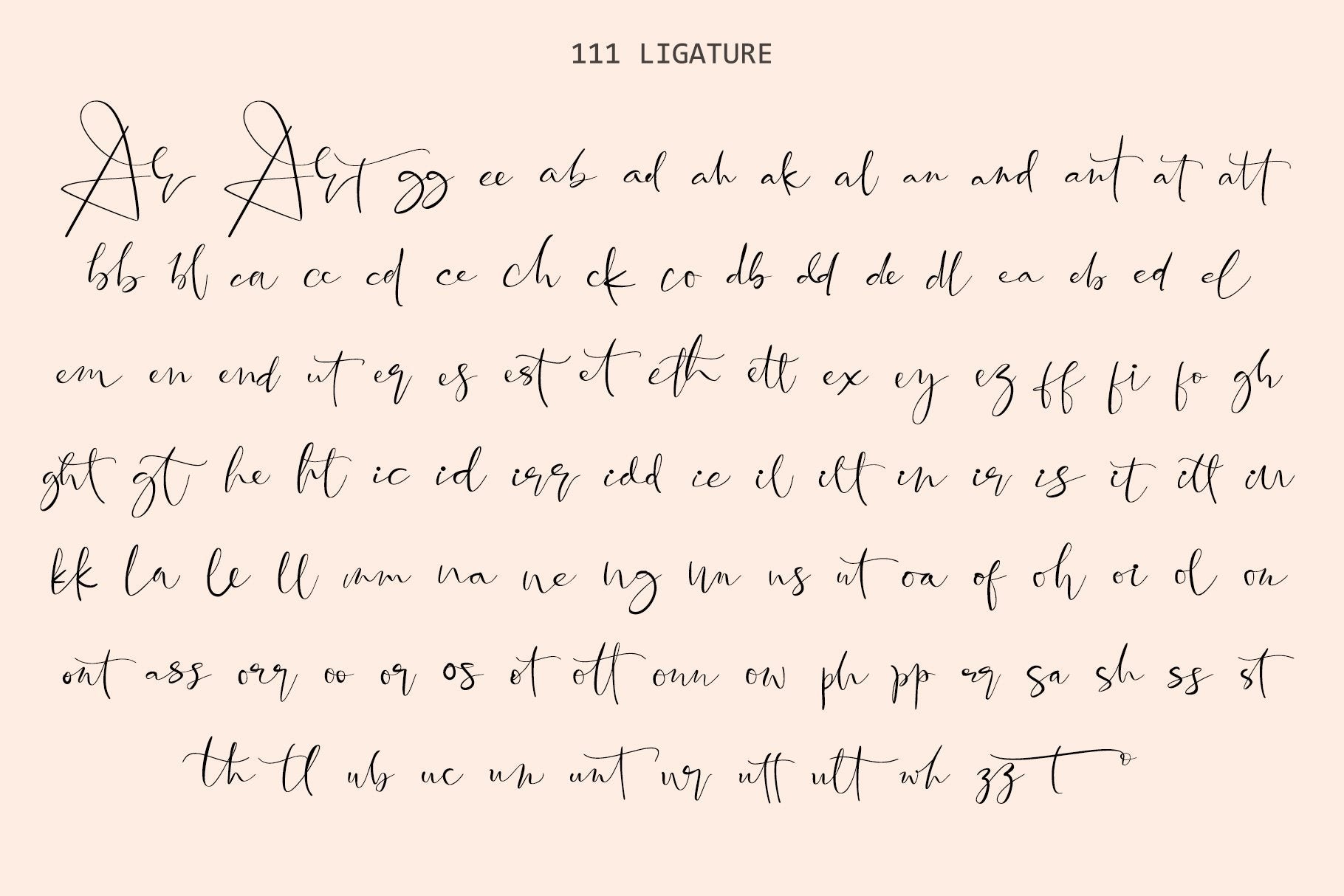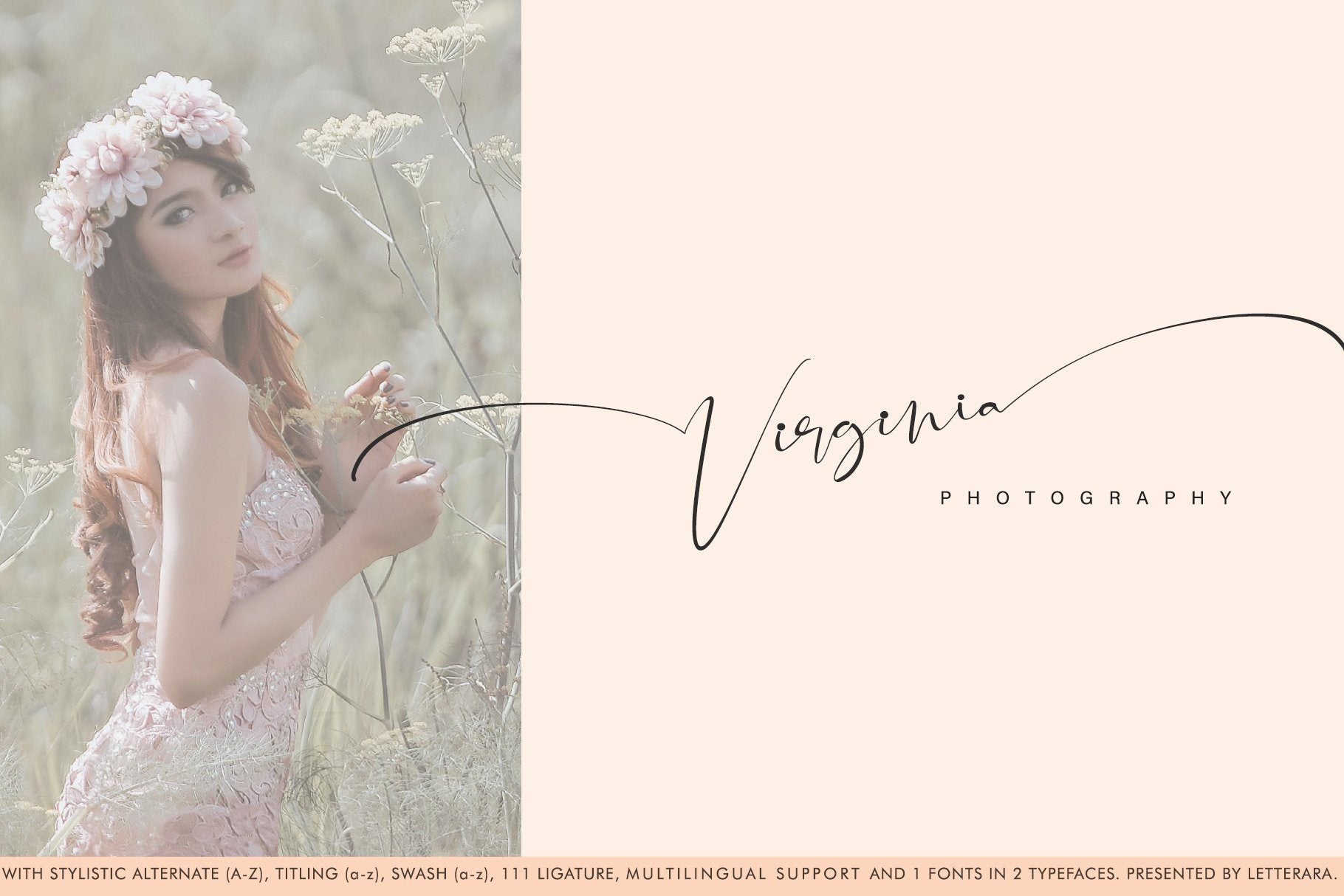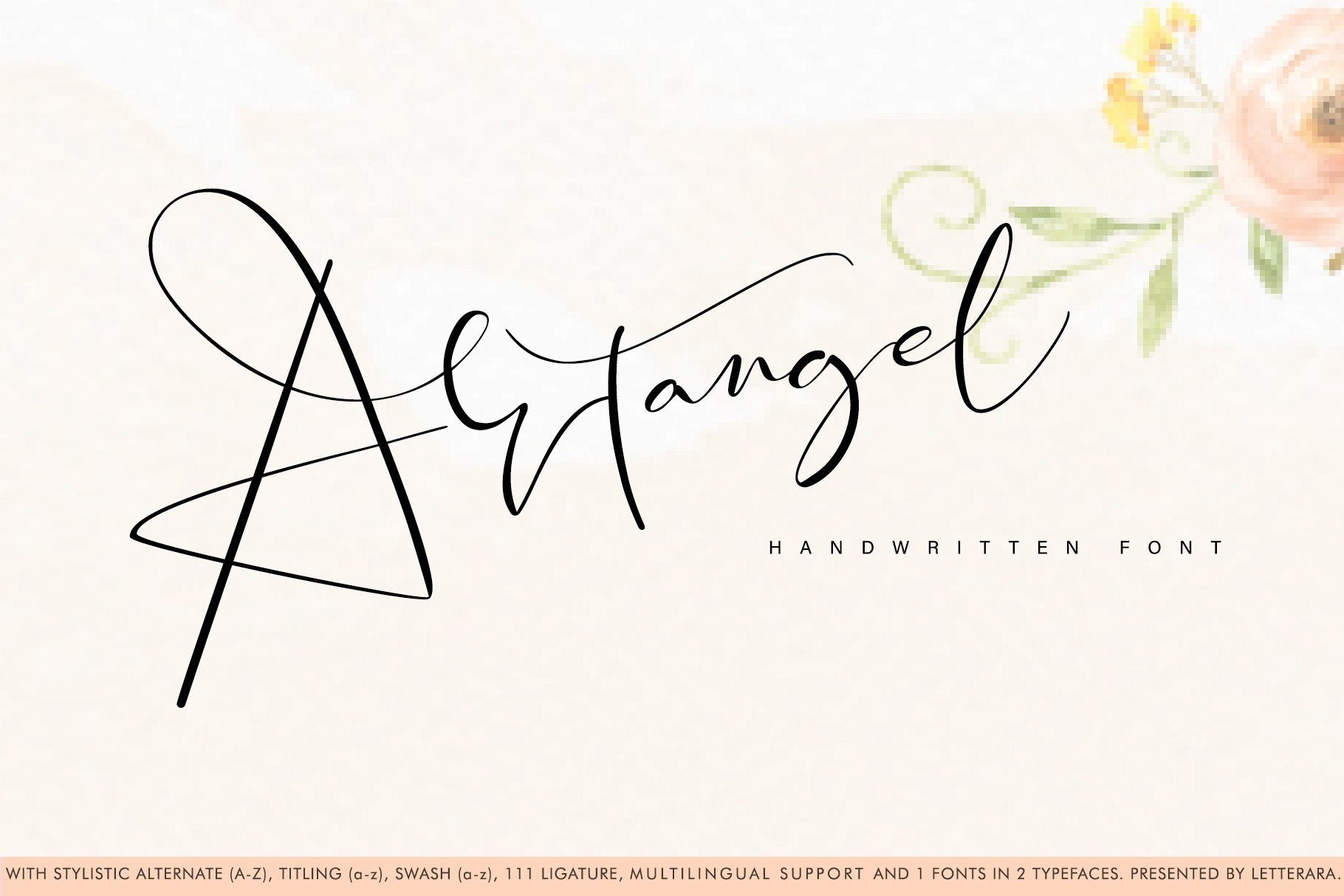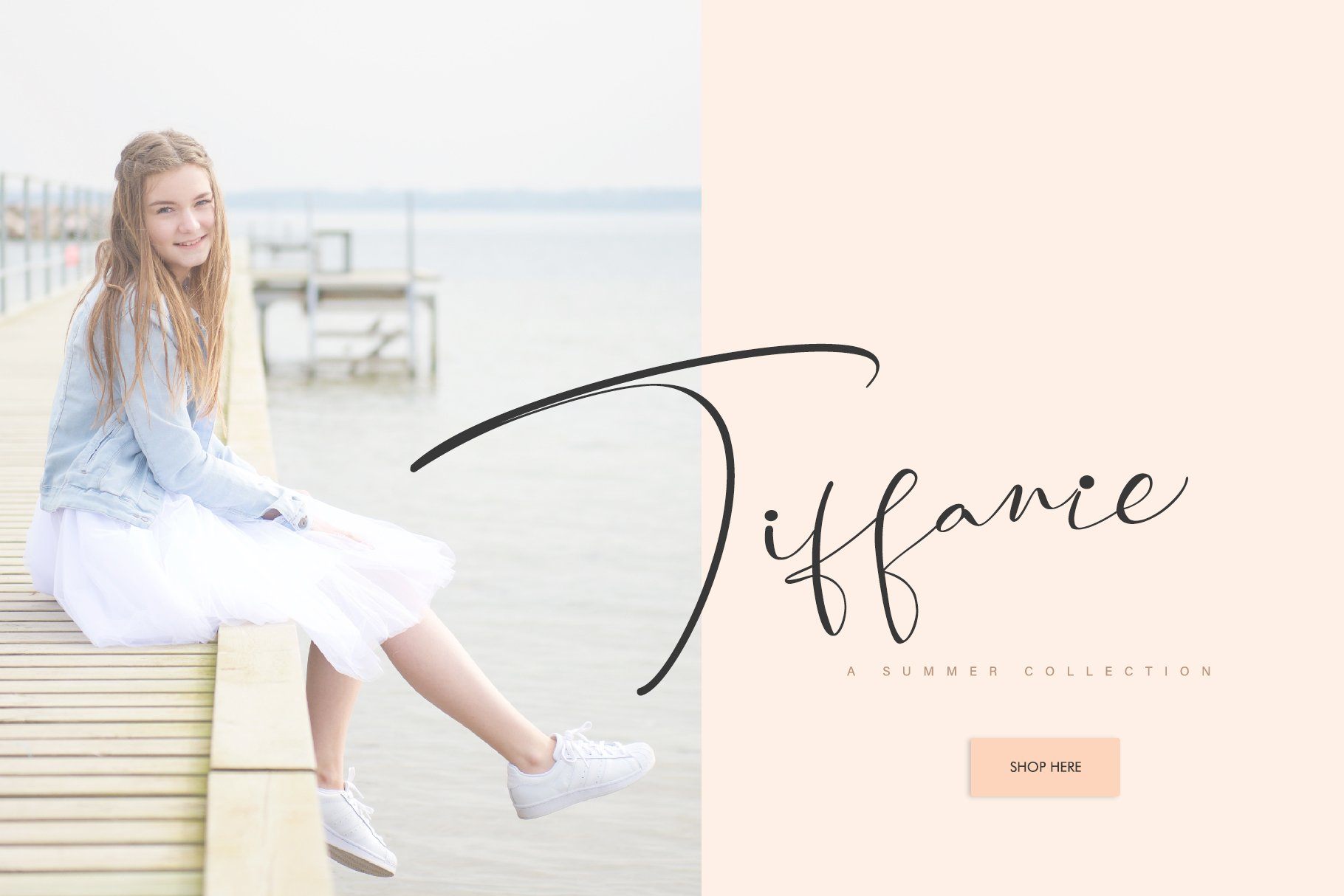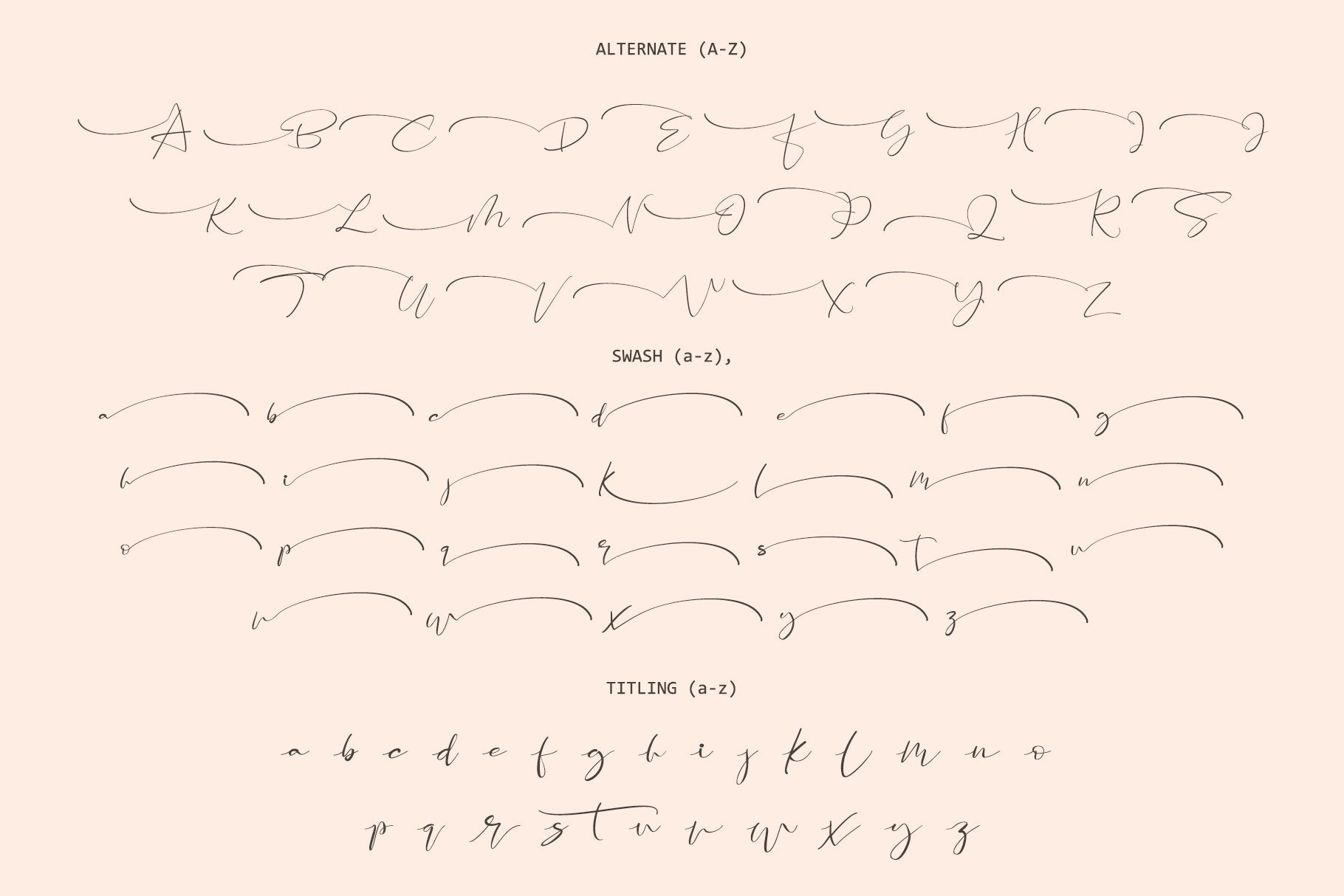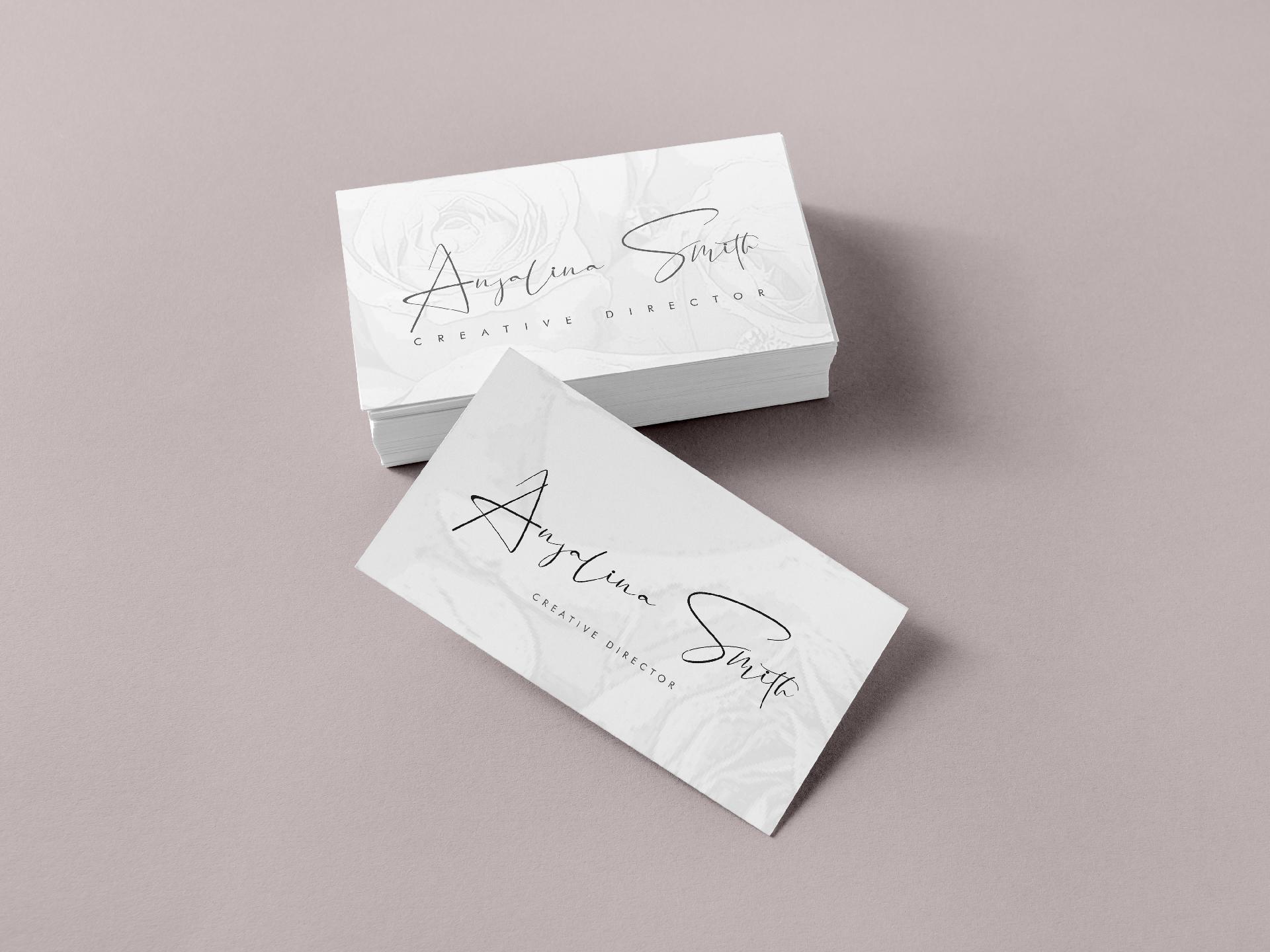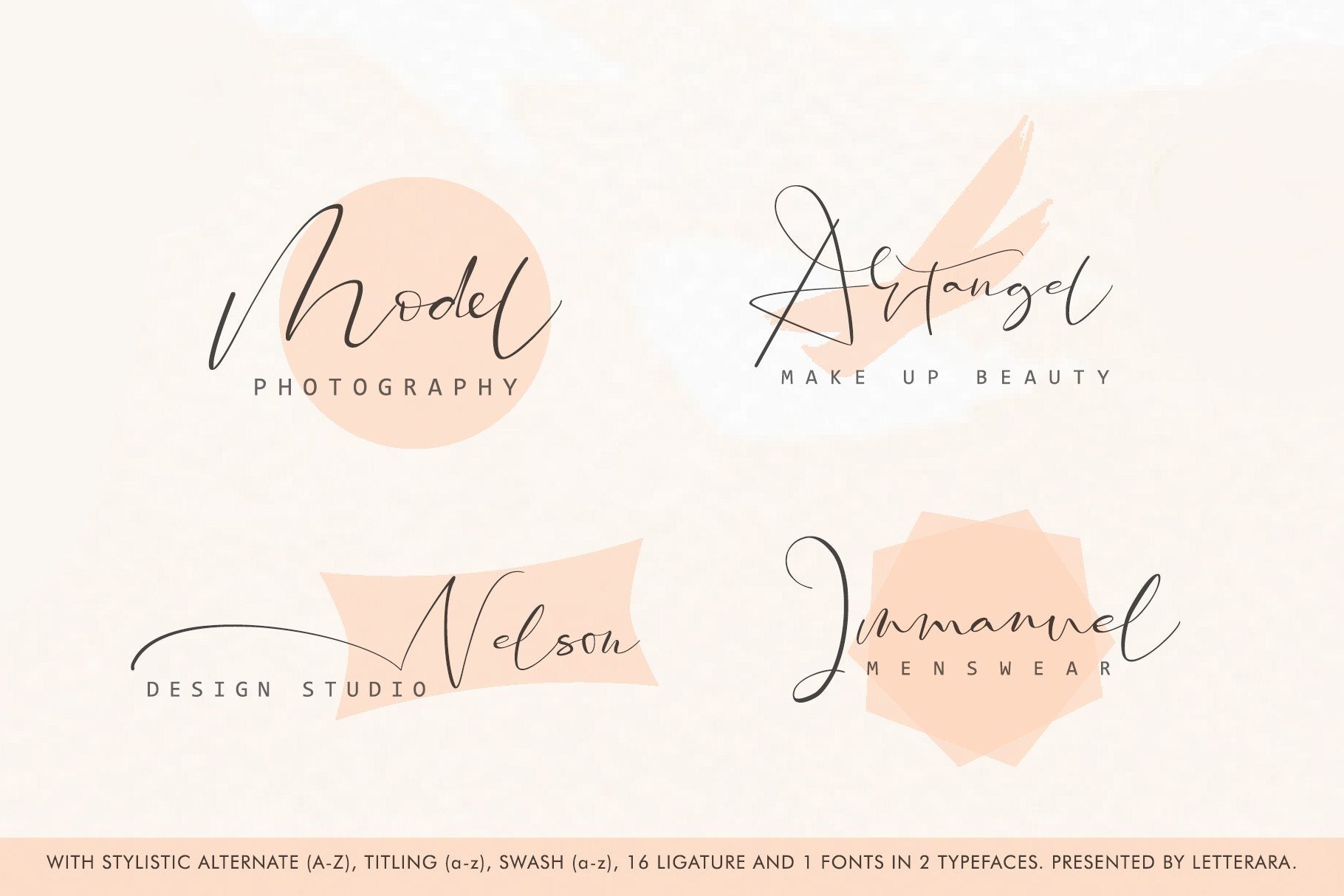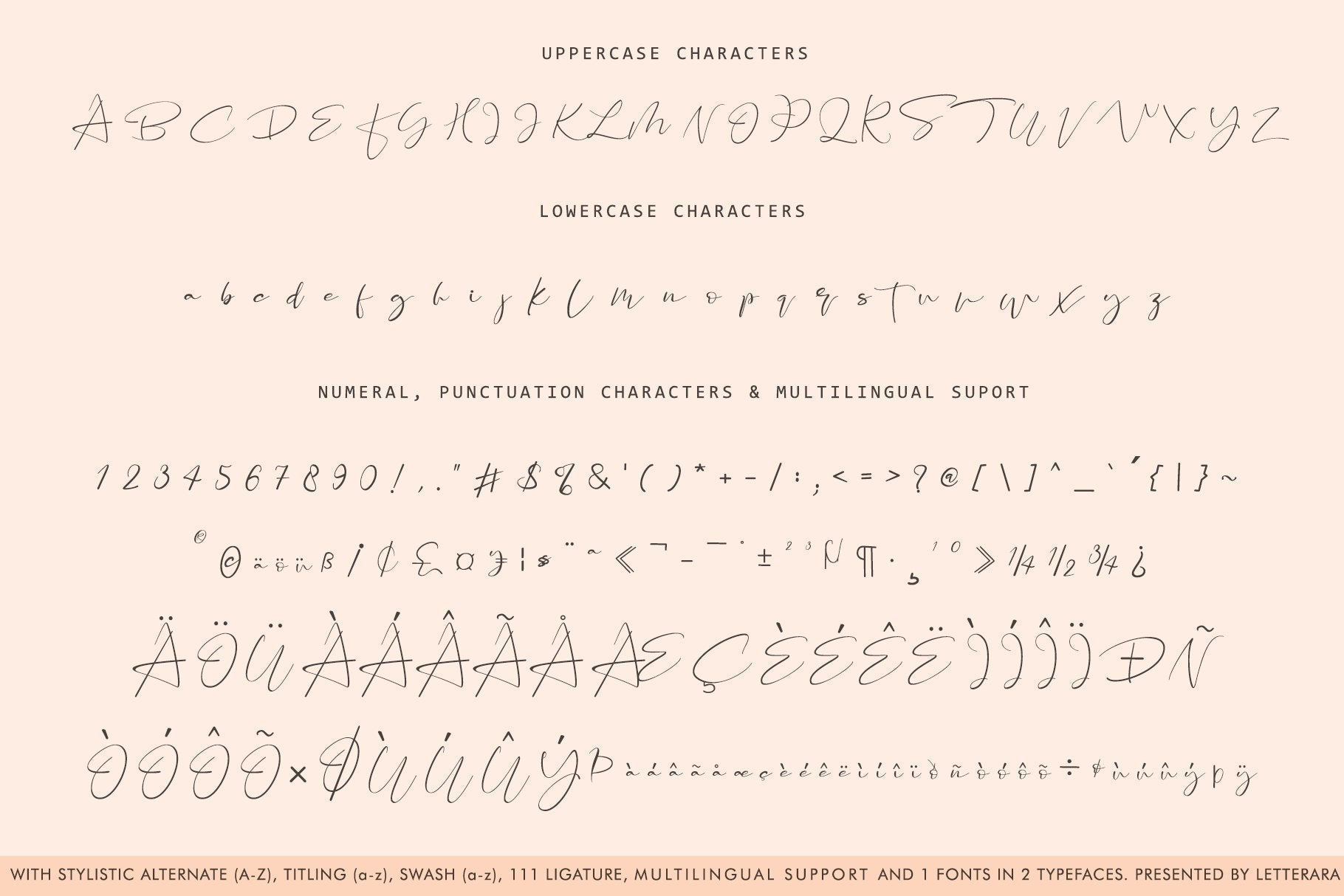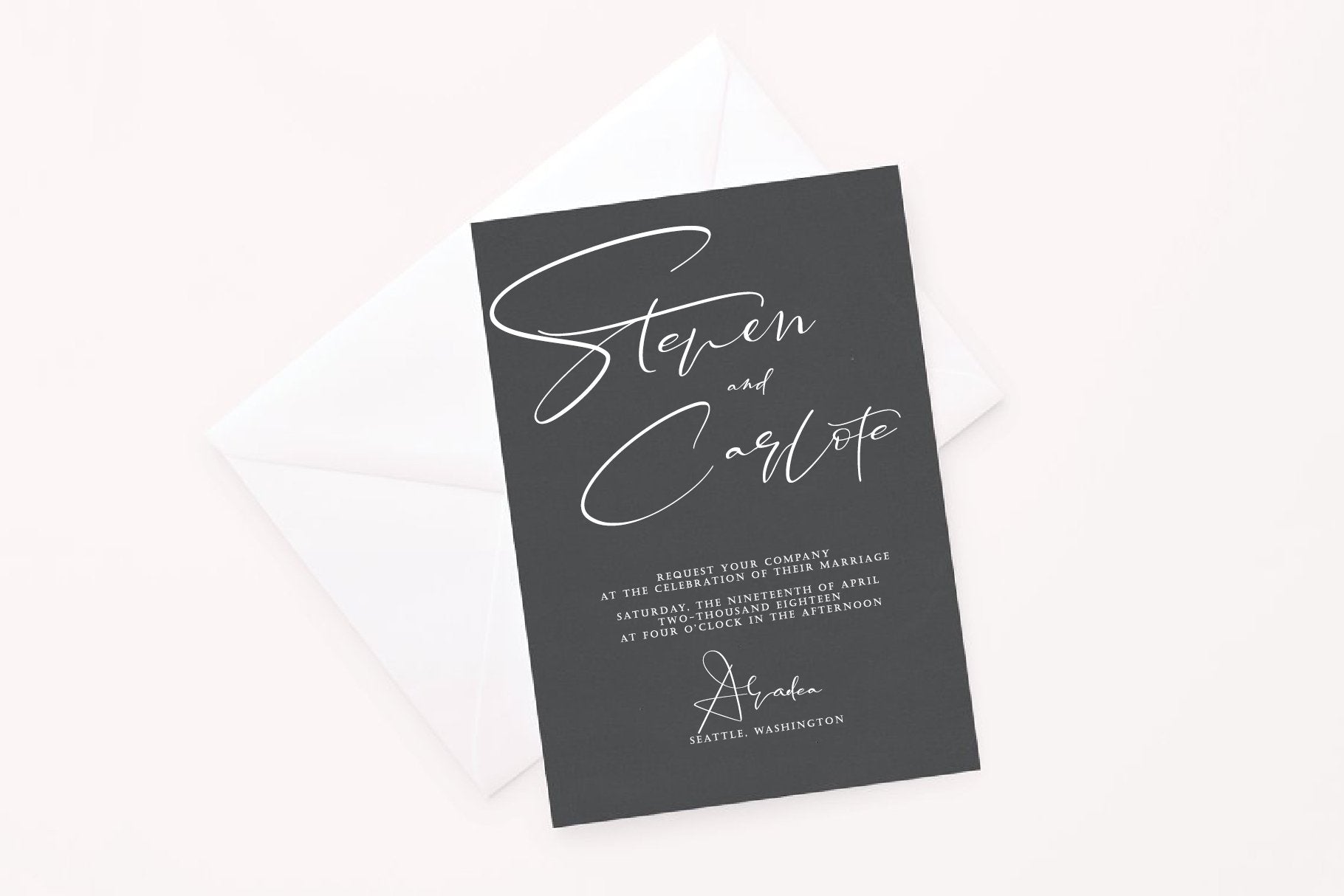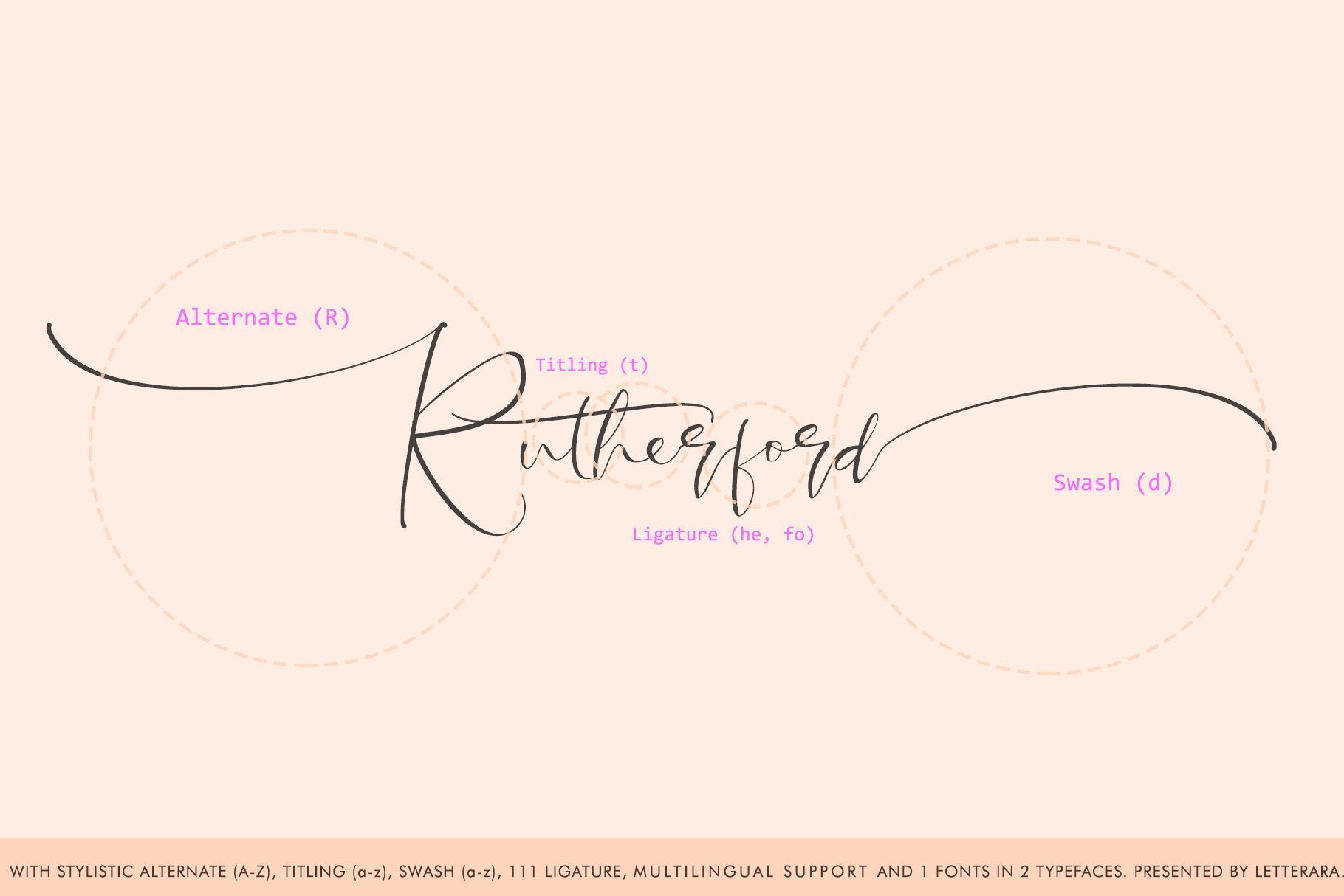
Santeria
About Santeria
Santeria Signature is a beautiful calligraphy. It’s perfect for adding a luxurious touch to your logos, packagings, wedding stationary, websites, and every other designs which need a handwritten feel. This family includes 2 styles which can be combined perfectly. Giving you the opportunity to create multiple unique designs in an instant. A wide range of swashes (a-z),  alternates (A-Z), titiling (a-z) and 111 ligature  are included so that you can give your logo or name a custom, hand-calligraphy look. don’t wait anymore, put it in your shopping basket đŸ™‚ and follow me, because there will be many promos! Thanks for checking out my store, and feel free to get in touch if you have any questions!  Features : – Upper Case & Lowercase – Numerals – Punctuations (OpenType Standard) – Accents (Multilingual characters) – Ligatures and Alternative Style Stylistic Set – Works on PC & Mac – Simple installations – Accessible in the Adobe Illustrator, Adobe Photoshop, Adobe InDesign, even works on Microsoft Word. Our other products : BEST SELLER BLACK PINK SIGNATURE ANDORA BRIGITTA